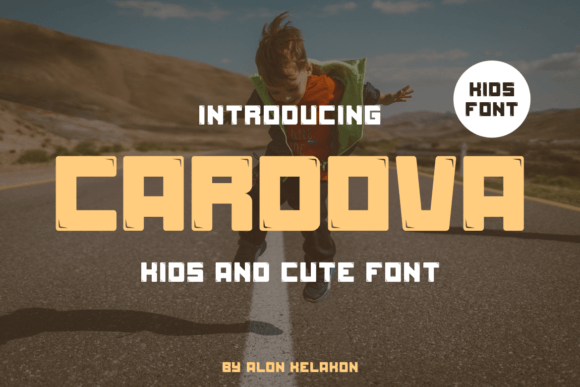
The Perfect Font for Making a Statement
You know that moment when you’re in the midst of a creative project, and you just can’t find the right font to bring it all together? You’ve tried a dozen different options, but nothing seems to capture the essence of your design. That’s when you stumble upon the perfect font – the one that makes your project stand out from the crowd. For many designers, that font is the Cardova Font.
This bold, all caps display font is the perfect combination of trendiness and sophistication. Whether you’re crafting a digital design, creating a presentation, or making greeting cards, the Cardova Font is sure to make a lasting impression. Its versatility and edgy vibe make it a valuable addition to any designer’s toolkit, and its ease of use makes it accessible to designers of all levels.
Cardova Font Key Features
- Font Family: Cardova Font is a sans-serif font family with a modern and clean design, suitable for various applications, including digital products and print materials.
- Font Sizes: The font family includes various weights and styles, ranging from Extra Light (100) to Extra Bold (800), providing flexibility for different design requirements.
- Resolution: Cardova Font is designed to be highly legible at various resolutions, including low-resolution displays and high-resolution printing.
- Unique Characteristics: Cardova Font features a distinctive x-height and a unique letterform design, making it stand out from other sans-serif fonts.
- Character Count: The font family includes a comprehensive set of characters, including Latin, Greek, and Cyrillic scripts, as well as various punctuation and symbol sets.
Cardova Font Review
At first glance, I was drawn to the Cardova Font due to its modern and sleek design. The font has a ✨ clean aesthetic that would suit various projects, from branding to digital interfaces. I appreciate how it balances simplicity with a touch of sophistication.
- ✨ Highly legible, making it perfect for body text and paragraphs.
- ✨ A versatile font that works well in both headings and titles.
- ✨ Available in multiple weights and styles, offering a range of customization options.
- ⚠️ Some characters may appear slightly pixelated, especially at smaller font sizes.
- ⚠️ Limited support for certain languages and scripts, which might be a concern for global projects.
Overall, I find the Cardova Font to be a solid choice for projects where a modern and clean aesthetic is desired. While it may not be the most versatile font in terms of language support or character rendering, it’s an excellent option for projects with a more limited scope. With some tweaking and adjustments, the Cardova Font can help elevate the visual appeal of your design projects.
Cardova Font Practical Application Guide
Getting the Most Out of Cardova Font
For the best results, use the Cardova font in conjunction with high-contrast backgrounds and bold graphics.
Use it for headings and titles to create a professional and modern look.
Experiment with different font sizes and styles to create visual interest and emphasis.
The Cardova font is ideal for:
– Modern branding and logos
– Digital marketing materials
– Corporate identity designs
– Creative and innovative projects
Alternatives to Cardova Font
Comparison to Cardova Font: While Cardova Font has a more rounded and playful feel, Open Sans is more neutral and clean. Open Sans is a better choice when you need a font that is easy to read and doesn’t distract from the content.
Lato is a sans-serif font with a modern and elegant feel. It is highly legible and suitable for body text, headlines, and titles. Lato is a great choice for designs that require a touch of sophistication and elegance.
Can I customize the Cardova Font?